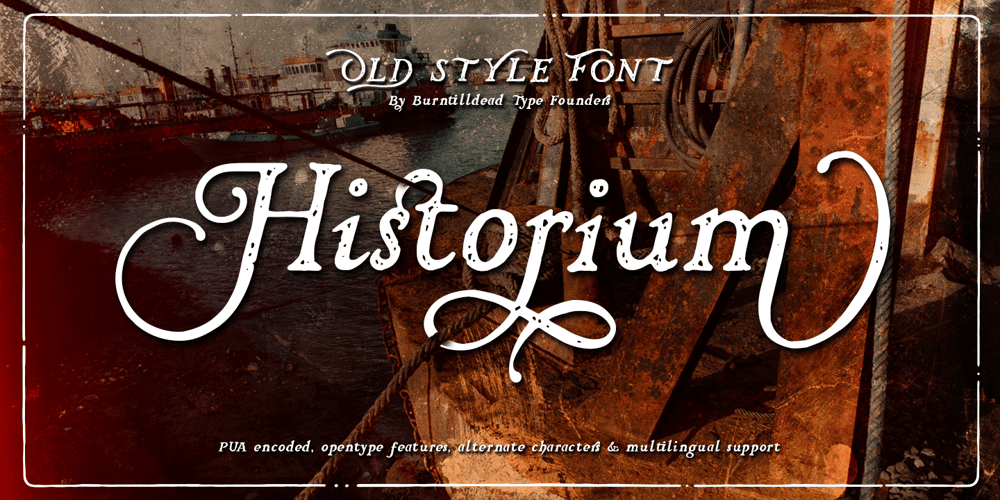
Historium Font Family was designed by Eric Kurniawan and published by Burntilldead. Historium contains 4 styles and family package options. Life is a journey and every journey has their own special moments that give a deep personal feeling and memories to always remember. The Historium family is an attempt to capture that.A Harmonious Set:Historium comes with full set of uppercase, lowercase, alternate uppercase, alternate lowercase, ligatures, discretionary ligatures, contextual alternate, subscripts, and superscripts. Please see preview 5 to see the detail.OpenType Support:Please use a software or app that support opentype panel so you can easily access all the characters set like Adobe Photoshop CC, Illustrator CC, Indesign CC, MS Word 2010 or higher, QuarkXPress, ETC.